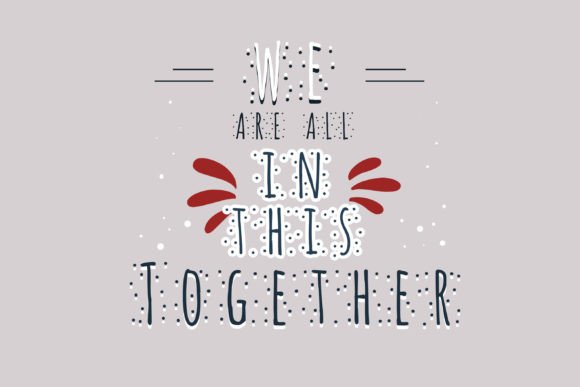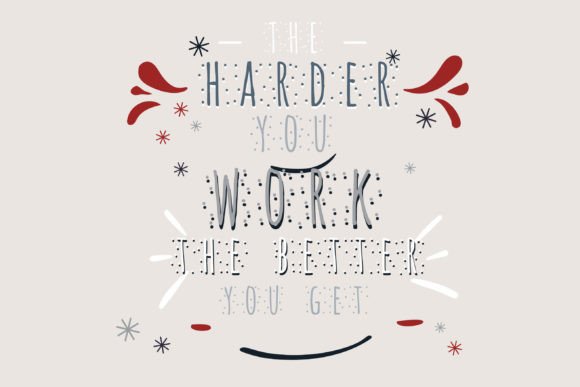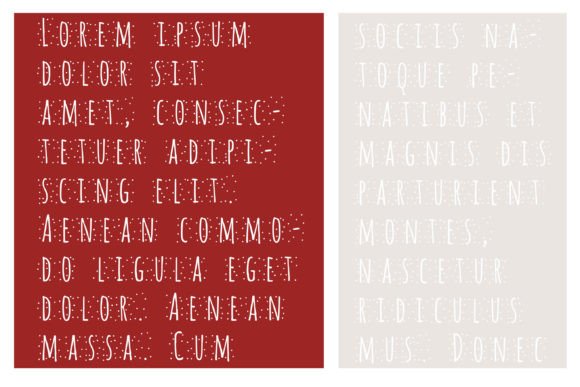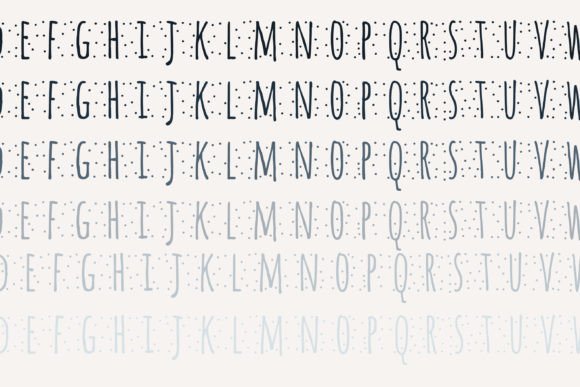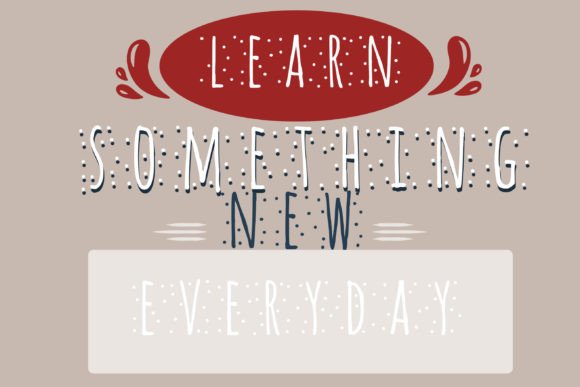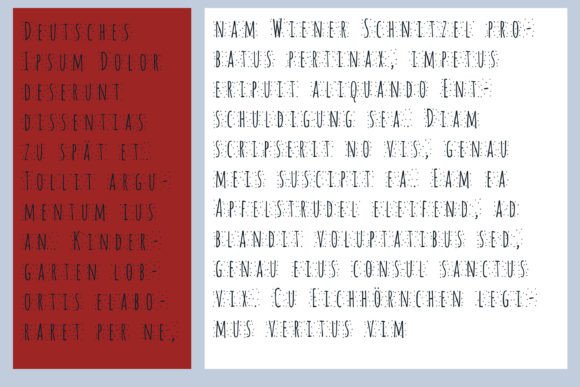
Introducing Altisimo Snow Font: A Charming Handwritten Decorative Font
Are you looking for a font that adds a touch of personality and whimsy to your designs? Look no further than Altisimo Snow Font, a simple and cute handwritten decorative font that’s perfect for a variety of creative projects. In this article, we’ll take a closer look at the features and benefits of Altisimo Snow Font, and explore how it can elevate your designs.
What is Altisimo Snow Font?
Altisimo Snow Font is a friendly hand-lettered typeface that’s designed to bring charm and style to your designs. With its playful and approachable feel, this font is ideal for creating quotes, headings, logos, branding, merchandise, and websites that need a personal touch. Whether you’re a designer, crafter, or DIY enthusiast, Altisimo Snow Font is a versatile and fun font that can help you achieve your creative goals.
Key Features of Altisimo Snow Font
So, what makes Altisimo Snow Font so special? Here are some of its key features:
- Handwritten style: Altisimo Snow Font has a beautiful, handwritten feel that’s perfect for creating unique and personalized designs.
- Simple and cute: This font is characterized by its simplicity and cuteness, making it perfect for a wide range of creative projects.
- Decorative: With its playful and decorative style, Altisimo Snow Font is ideal for adding a touch of personality to your designs.
- Charming and stylish: This font has a charming and stylish feel that’s sure to capture the attention of your audience.
Use Cases for Altisimo Snow Font
Altisimo Snow Font is a versatile font that can be used in a variety of creative projects, including:
- Quotes and posters: Add a personal touch to your quotes and posters with Altisimo Snow Font’s playful and decorative style.
- Logos and branding: Create a unique and memorable brand identity with Altisimo Snow Font’s charming and stylish feel.
- Merchandise: Add a touch of personality to your merchandise, such as t-shirts, mugs, and tote bags, with Altisimo Snow Font.
- Websites: Use Altisimo Snow Font to create headings, titles, and other decorative elements for your website.
Benefits of Using Altisimo Snow Font
So, why should you choose Altisimo Snow Font for your creative projects? Here are some of its benefits:
- Unique and personalized designs: Altisimo Snow Font helps you create unique and personalized designs that stand out from the crowd.
- Easy to read and understand: This font is easy to read and understand, making it perfect for creating designs that communicate a message.
- Versatile: Altisimo Snow Font can be used in a wide range of creative projects, from quotes and posters to logos and branding.
- Fun and playful: This font adds a touch of fun and playfulness to your designs, making them more engaging and memorable.
Tips for Using Altisimo Snow Font
Here are some tips for using Altisimo Snow Font effectively in your creative projects:
- Use it sparingly: Altisimo Snow Font is a decorative font, so use it sparingly to avoid overwhelming your design.
- Pair it with other fonts: Pair Altisimo Snow Font with other fonts to create a unique and visually appealing design.
- Experiment with colors and textures: Experiment with different colors and textures to add depth and interest to your design.
- Keep it simple: Keep your design simple and clean to ensure that Altisimo Snow Font is the focus.
Altisimo Snow Font is a charming and stylish handwritten decorative font that’s perfect for a wide range of creative projects. With its playful and approachable feel, this font is ideal for designers, crafters, and DIY enthusiasts who want to add a touch of personality to their designs. Whether you’re creating quotes, logos, branding, merchandise, or websites, Altisimo Snow Font is a versatile and fun font that can help you achieve your creative goals.